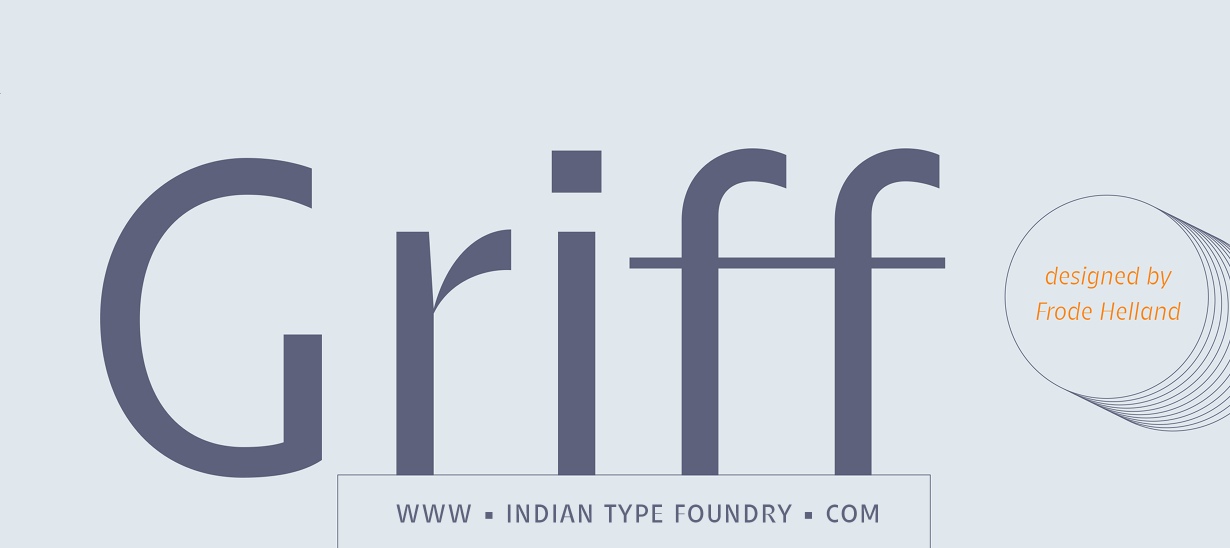
Griff Font
Griff Font is perfect for strong brand identities, bold advertising campaigns, masculine product packaging, rugged lifestyle branding, powerful corporate presentations, industrial design projects, automotive marketing materials, sports team identities, and commanding promotional designs.
What makes Griff Font exciting is its distinctive grip-like character that commands attention through bold, assertive letterforms that seem to grab hold of viewers and refuse to let go. The font features strong geometric structures with confident angles that convey determination, reliability, and unwavering strength. Its commanding presence and gripping visual impact make it perfect for brands that need to establish immediate authority and create lasting impressions while communicating the kind of firm handshake confidence that builds trust and respect in competitive markets.
Griff Font family includes various powerful weights such as Regular, Medium, Bold, and Heavy variations, often featuring condensed versions optimized for maximum impact. The family may include strong alternates, grip-inspired symbols, and bold decorative elements that enhance the font's commanding aesthetic, providing designers with comprehensive options for creating authoritative brand identities that establish market dominance and customer confidence.